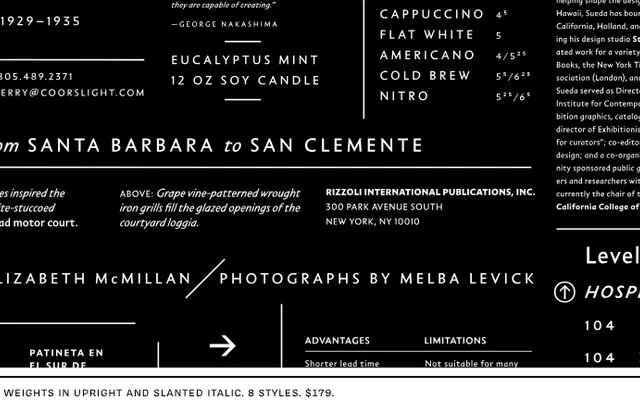
Camelion
OH no Type · Sandrine Nugue · 2024
A humanist text face by Sandrine Nugue that inverts conventional roman and italic roles, pairing chiselled clarity with warmth at paragraph sizes.
Designed by Sandrine Nugue and released through OH no Type in 2024, Camelion subverts typographic convention by rooting itself in the slanted roman and upright italic tradition rather than the standard pairing. Four weights from Regular to ExtraBold, each with a matching italic, make up eight styles. The result is a text face that reads with high legibility while retaining the hand and humanity that characterise Nugue's broader body of work.
Camelion is described as a humanist text face with origins in slanted roman and upright italic constructions, reflecting Nugue's humanist drawing sensibility. The warmth and legibility at text sizes, combined with chiselled forms, place it firmly in humanist serif territory.